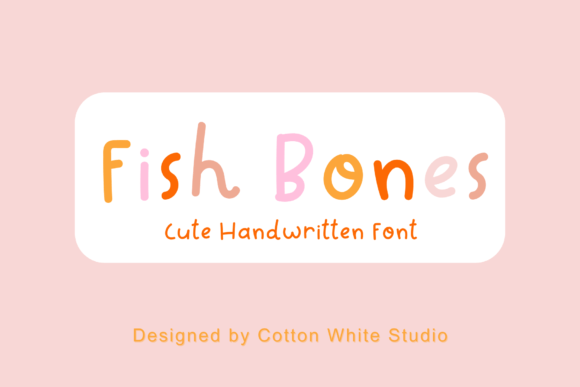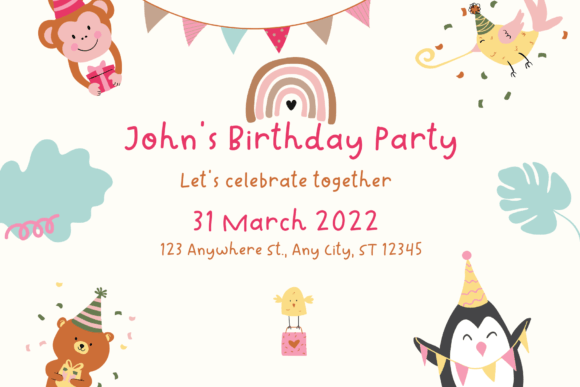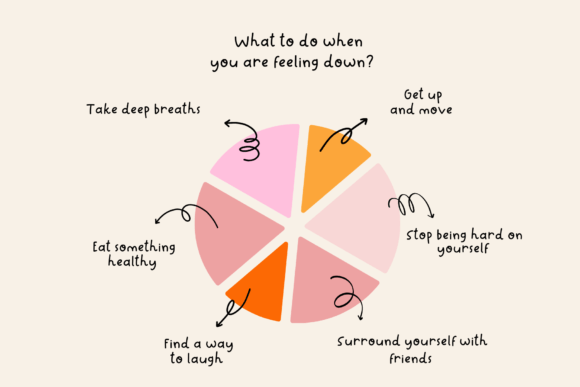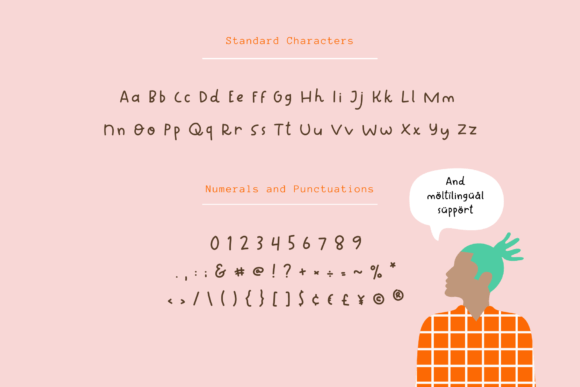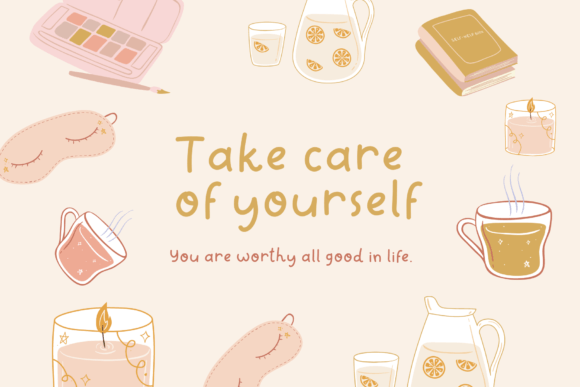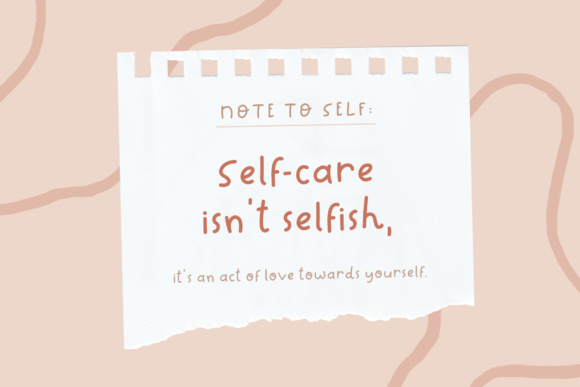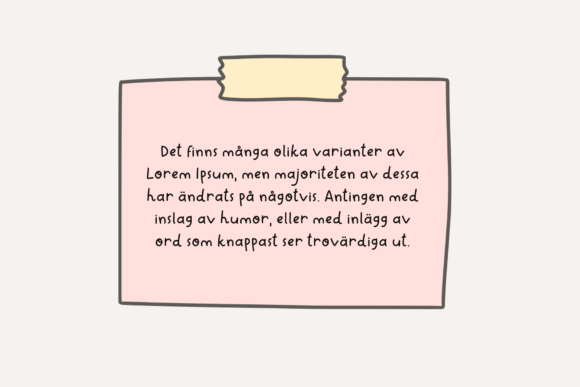
Do you ever get that itch to add a little extra flair to your digital planner, journal, or invitations? You know, that moment when you’re scrolling through font options and you stumble upon the perfect combination of playfulness and elegance? That’s exactly what happened to me when I discovered the Fish Bones Font.
This charming font is designed to mimic the look of handwritten script, making it perfect for adding a personal touch to your designs. Whether you’re a seasoned designer or a DIY enthusiast, Fish Bones Font is a valuable addition to your toolkit. With its versatility and unique style, it’s easy to see why designers are falling in love with this font.
Fish Bones Font Key Features
- Font Style: The Fish Bones Font is a unique, hand-drawn font that features a whimsical and playful design, making it suitable for various creative projects.
- Character Set: The font includes a comprehensive set of characters, including uppercase and lowercase letters, numbers, and punctuation marks, making it suitable for everyday use.
- Unique Characteristics: The Fish Bones Font features intricate, hand-drawn designs and subtle texture elements, adding a touch of personality to any text-based project.
Fish Bones Font Review
Overall, I’m quite impressed with the Fish Bones font. ✨ It has a unique, hand-drawn quality that adds a touch of whimsy and playfulness to any design. The font is perfect for projects that require a casual, laid-back vibe, such as children’s books, posters, or social media graphics.
- ✨ The font’s organic feel is achieved through subtle irregularities in the letterforms, which gives it a hand-crafted look.
- ✨ The character set is comprehensive, including a wide range of punctuation and special characters.
- ✨ The font is highly legible, even at small sizes, making it suitable for body text or headings.
- ⚠️ The font may not be suitable for formal or professional projects, as its casual nature may not be taken seriously.
- ⚠️ The font’s irregularities may not be suitable for projects that require precision or consistency, such as technical documentation or academic papers.
Overall, I think Fish Bones is a great addition to any designer’s toolkit. While it may not be the best choice for every project, it’s perfect for those that require a touch of personality and whimsy.
Introduction to Fish Bones Font
The Fish Bones Font is a unique, whimsical font that can add a touch of playfulness to your designs. In this guide, we’ll walk you through how to use it in popular design software and provide tips for getting the most out of it.
Common Use Cases for Fish Bones Font
1. Children’s book illustrations or design
2. Playful marketing materials or advertising
3. Whimsical wedding invitations or stationery